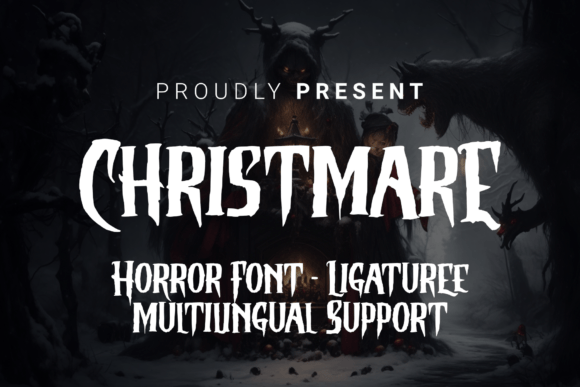
Unleash the Horror with Christmare Font: The Ultimate Typeface for Spine-Chilling Designs
Are you a graphic designer or a crafty individual looking to add a touch of horror and mystery to your visual creations? Look no further than Christmare Font, a typeface specifically crafted to evoke fear and suspense. Inspired by the eerie ambiance of Christmas Nightmare night, this font is designed to send chills down the spine of your audience.
The Design and Features of Christmare Font
Christmare Font boasts a unique design that perfectly captures the horror theme. Characterized by sharp lines and dark strokes, each letter exudes a mysterious and ominous aura. The creeping and isolated letter forms seem to whisper dark secrets, making it an ideal choice for designers who want to create spine-chilling designs. The font comes in OTF/TTF format, ensuring seamless compatibility with various design software.
Some of the key features of Christmare Font include:
- Standard glyphs for effortless typing and design
- Ligature for added creativity and visual appeal
- Multilingual Accent support for global designers
Perfect for Horror-Themed Designs
Christmare Font is specifically designed with the horror genre in mind, making it an excellent choice for designers who create:
- Horror movie posters that need to grab attention
- Eerie YouTube thumbnails that draw viewers in
- Spine-chilling graphics for haunted atmosphere projects
- Terrifying film titles that set the tone for the movie
Whether you’re working on a haunted house brochure or designing creepy elements for a horror-themed event, Christmare Font brings an added layer of suspense and darkness to your projects.
Why Choose Christmare Font?
Christmare Font is more than just a typeface – it’s an experience. By incorporating this font into your designs, you’ll be able to:
- Create a sense of horror and mystery that captivates your audience
- Add a unique touch to your designs that sets them apart
- Evoke emotions and create a lasting impression on your viewers
As a graphic designer or crafty individual, you understand the importance of typography in creating a lasting impression. Christmare Font offers a fresh and exciting way to add a touch of horror and suspense to your designs, making it an excellent addition to your font library.
Get Ready to Unleash the Horror